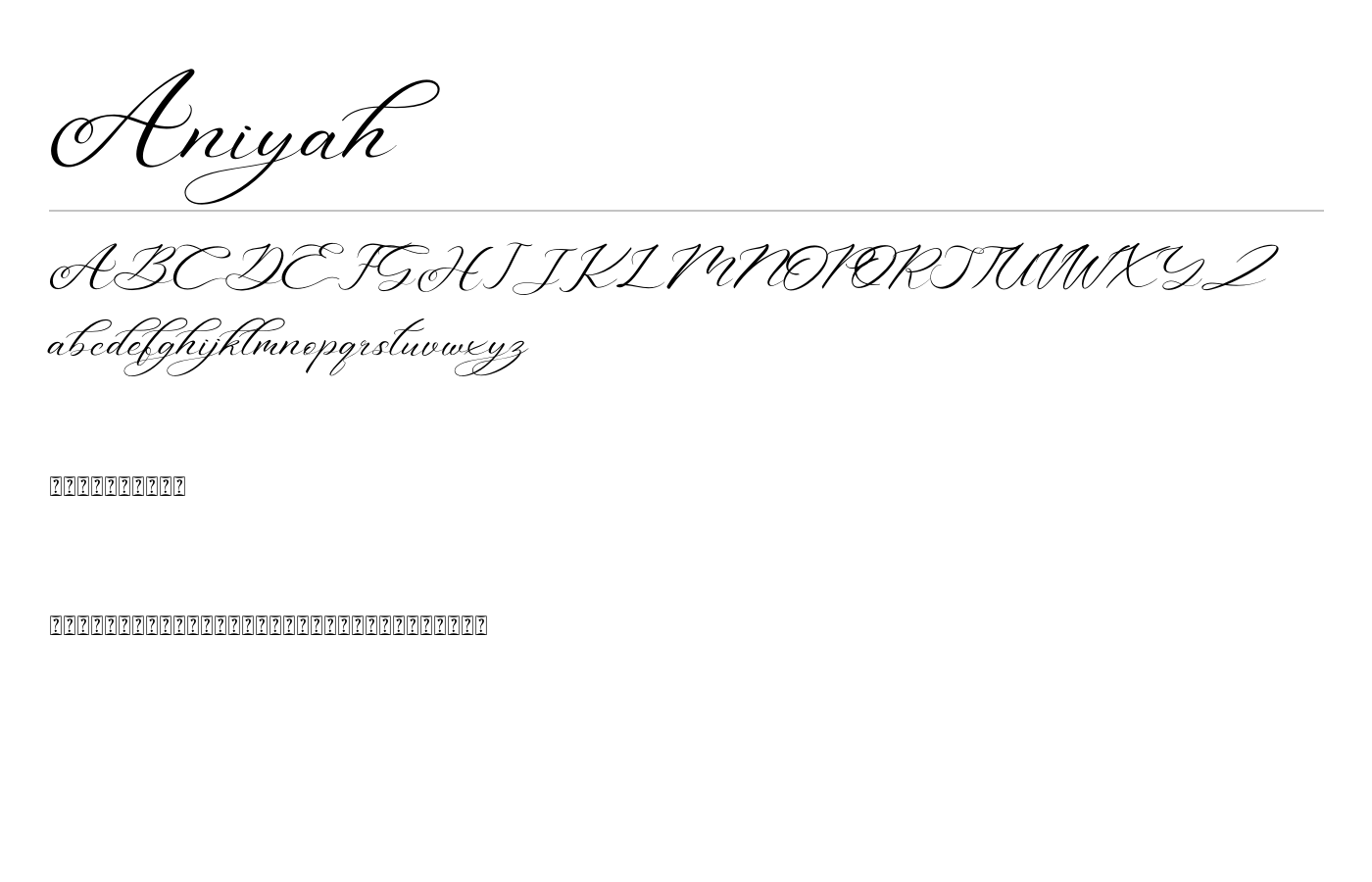
Aniyah Personal Use Only is an elegant script font characterized by its delicate, flowing strokes and high contrast between thin and thick lines. Its graceful cursive letterforms with refined swashes and loops evoke a sophisticated and romantic feel, making it ideal for invitations, branding, and decorative text that needs a touch of luxury and charm. This font works best in headlines or short phrases where its ornamental style can truly shine without sacrificing readability.
Aniyah Personal Use Only Font
About Aniyah Personal Use Only Font